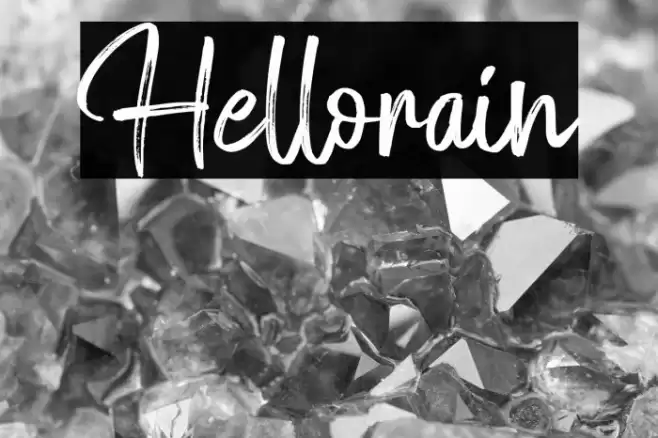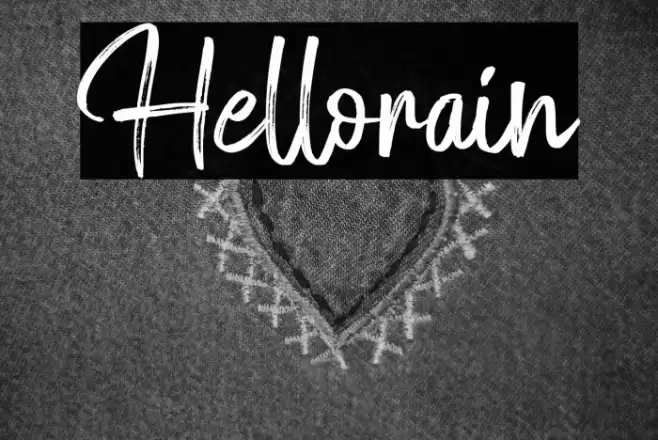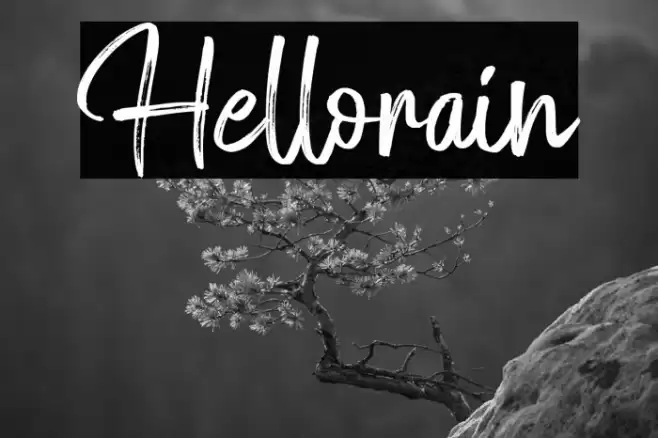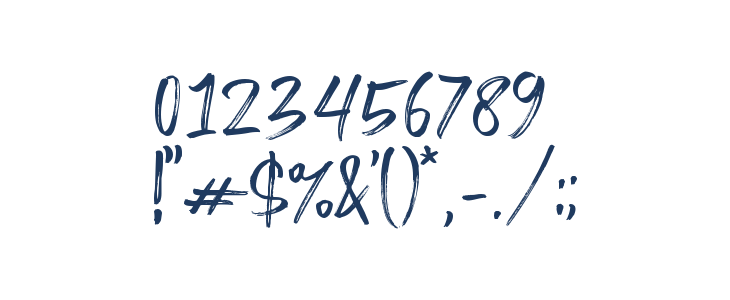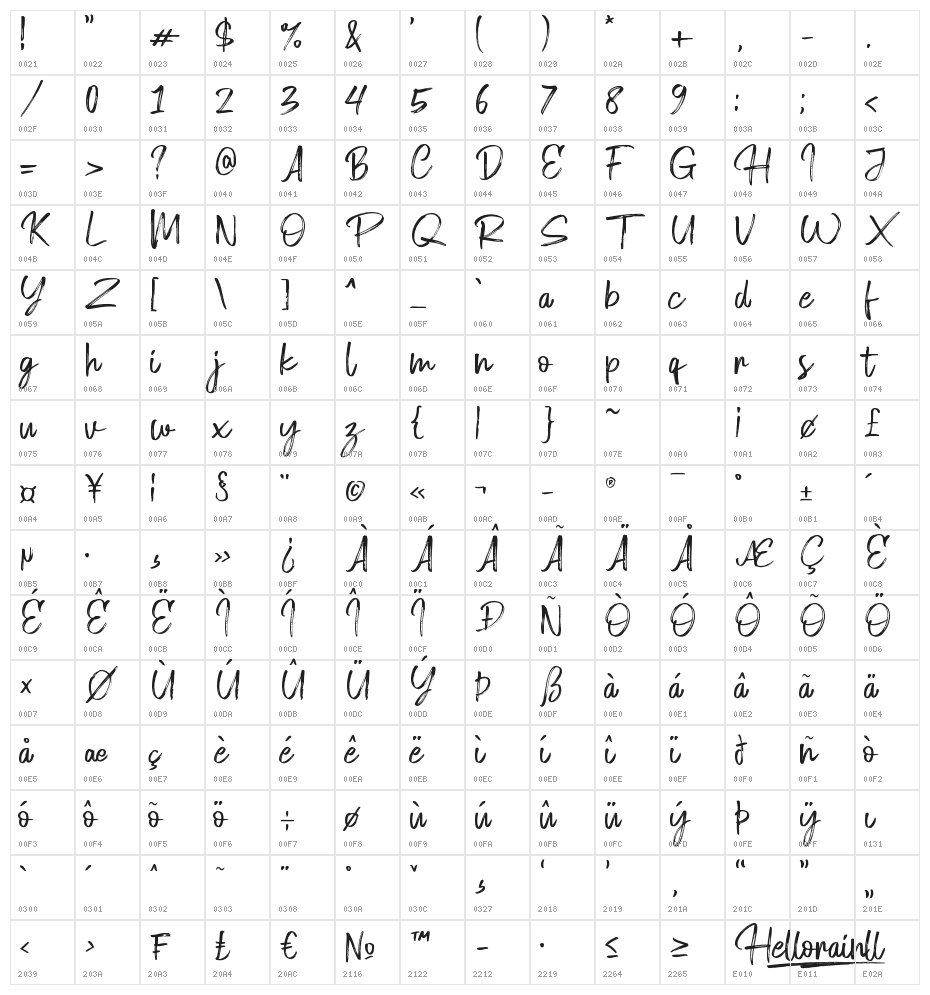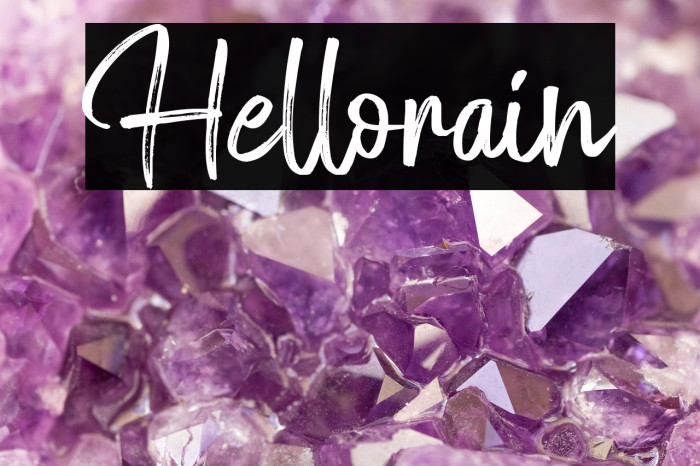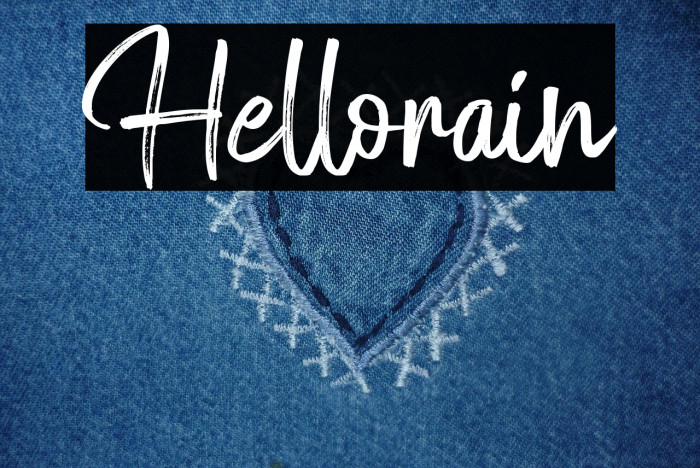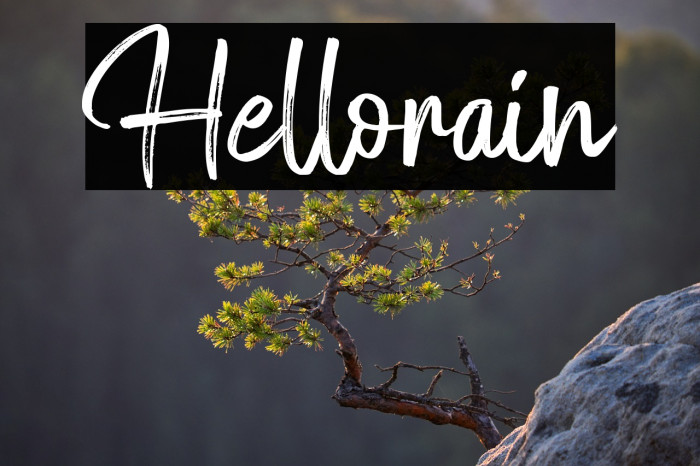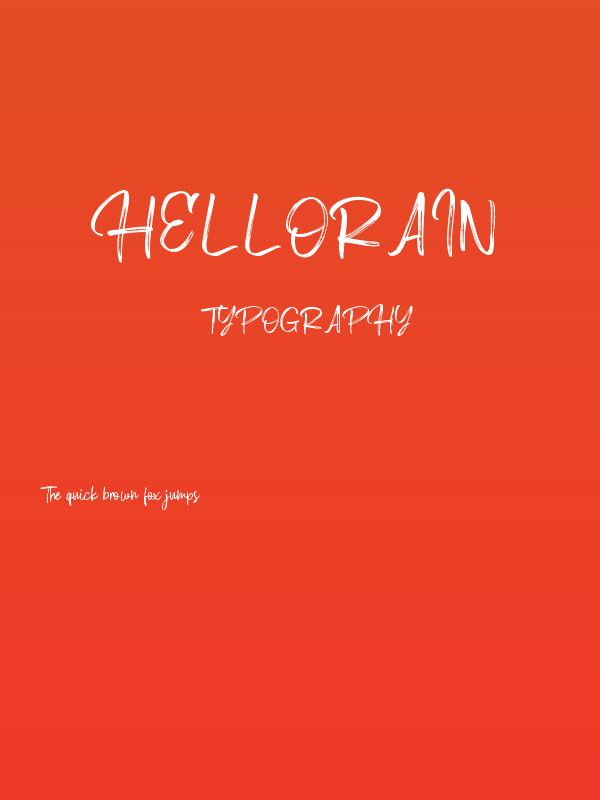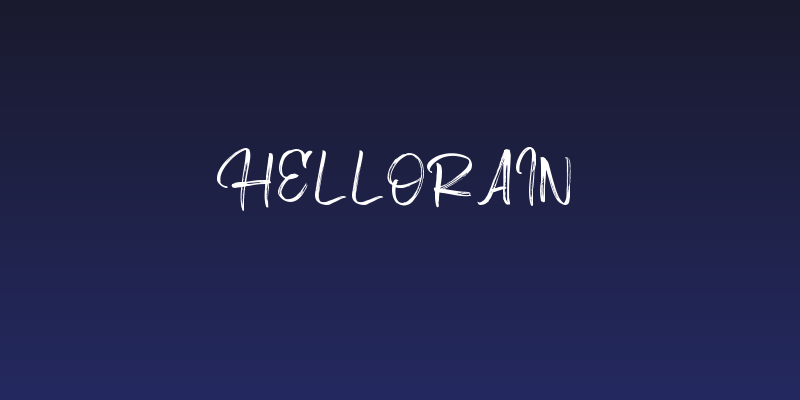
Hellorain Font
Hellorain Description
This font exudes a dynamic and energetic vibe with its brush script style. The letters are crafted with a hand-drawn appearance, featuring varying stroke widths that add a sense of movement and fluidity. The uppercase characters are bold and expressive, while the lowercase letters maintain a cohesive flow, enhancing readability. Numbers and special characters are designed with the same artistic flair, making them stand out. The overall design is both modern and artistic, suitable for projects that require a personal touch or a creative edge.
A dynamic brush script font with an energetic, hand-drawn style from Uncategorized fonts.